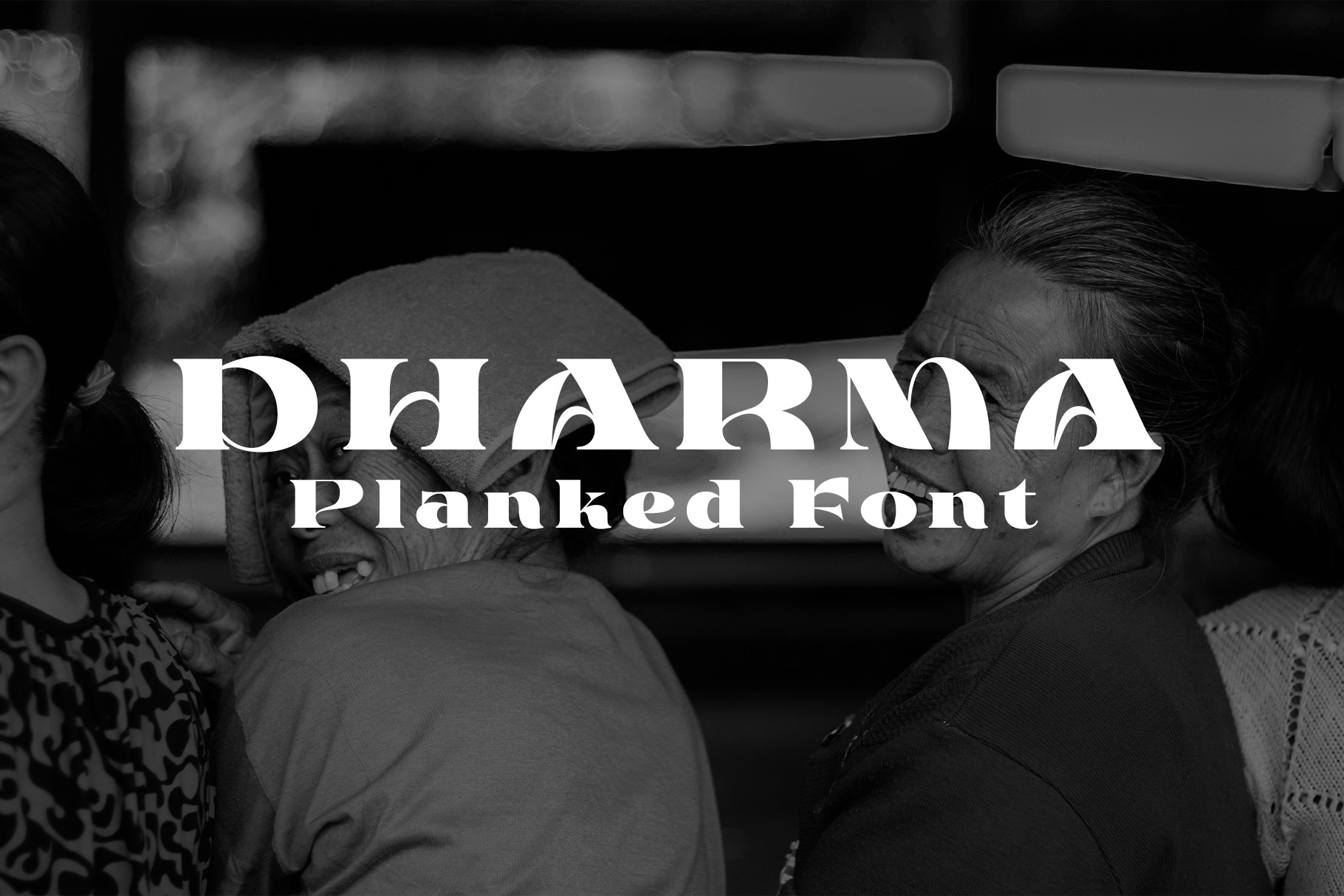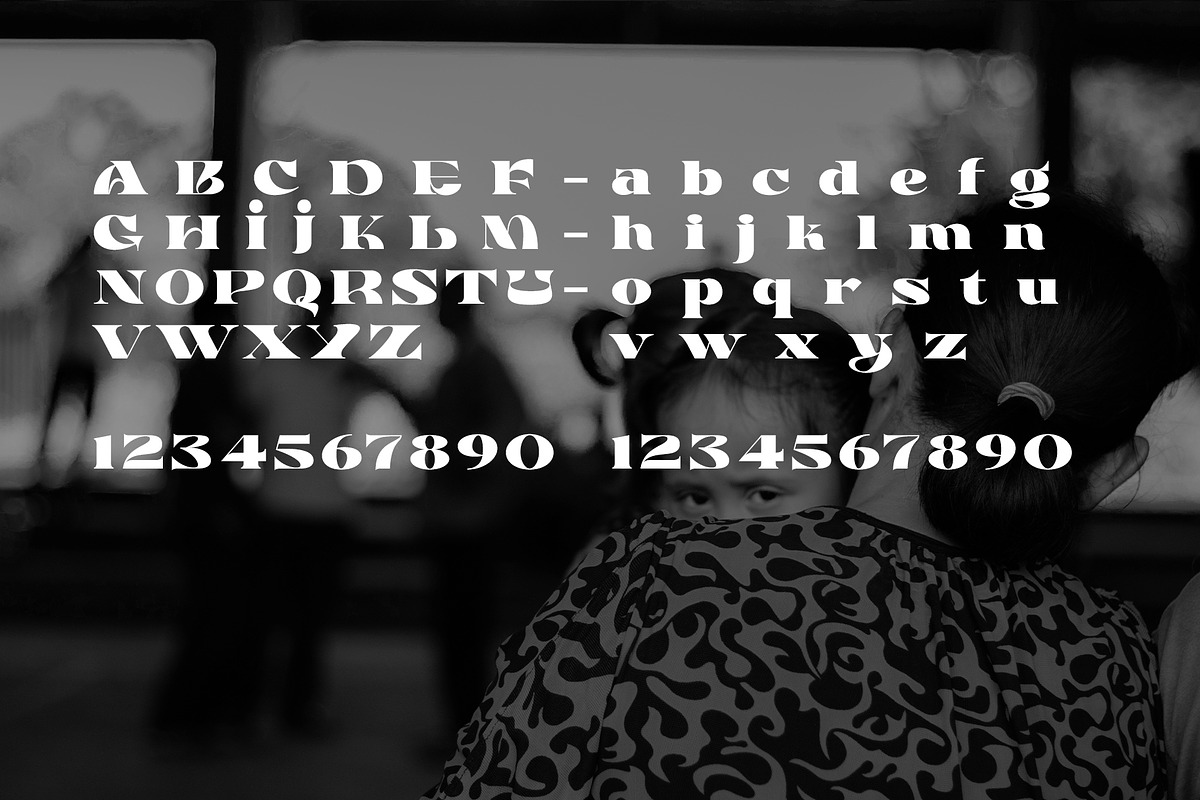
Dharma Planked Font
Plank Rollouts is a very versatile font. perfect for magazine images, to wedding invitations, to branding, poster design, and more.